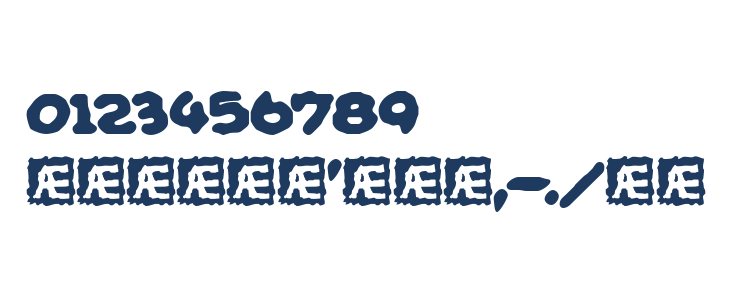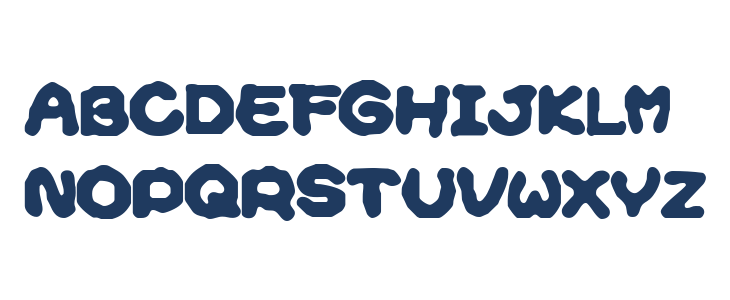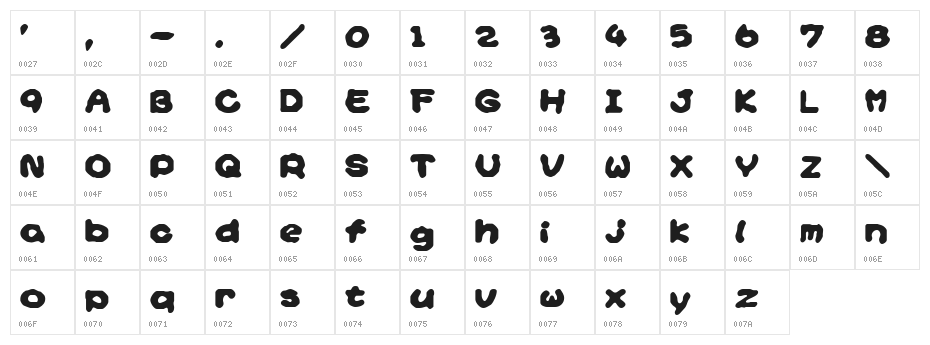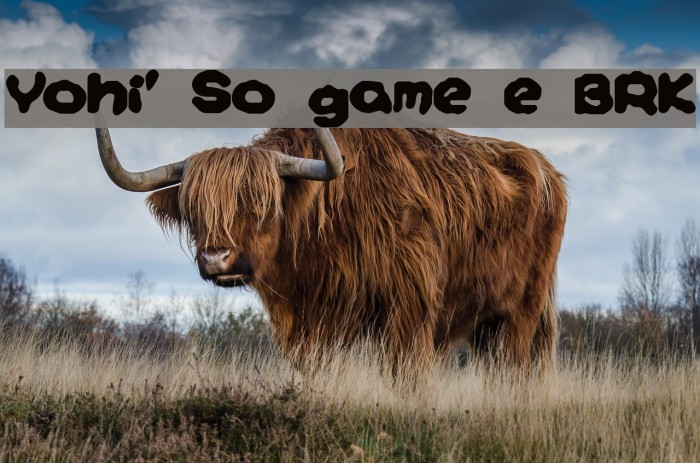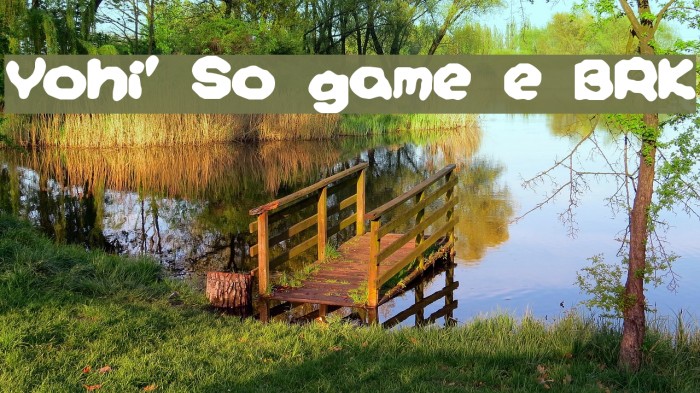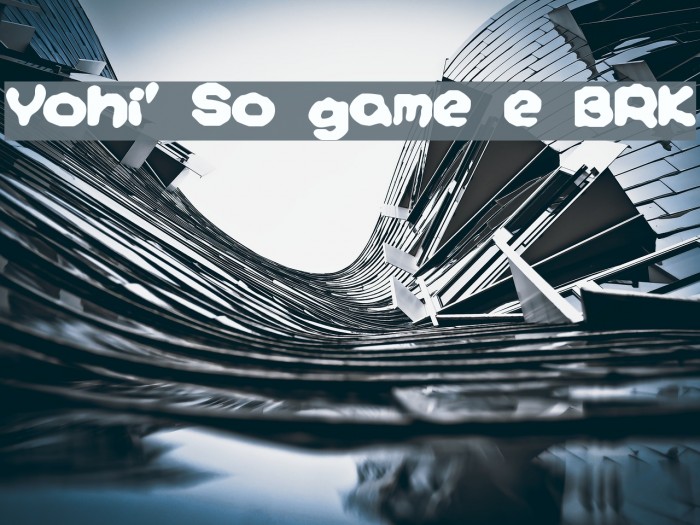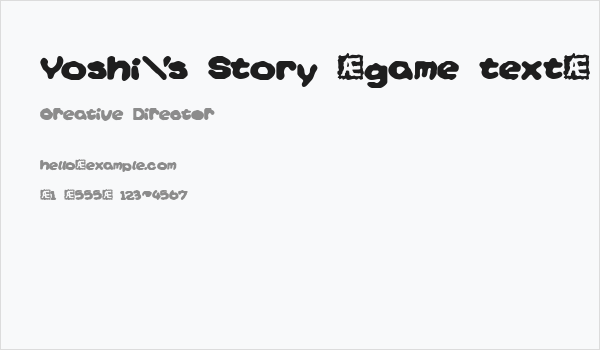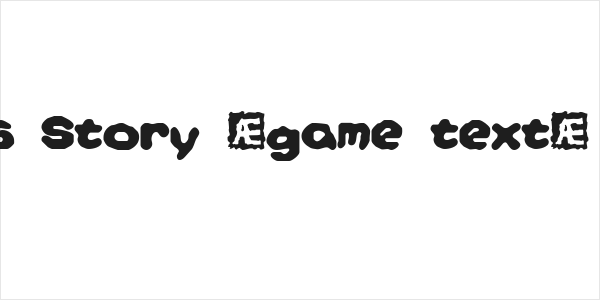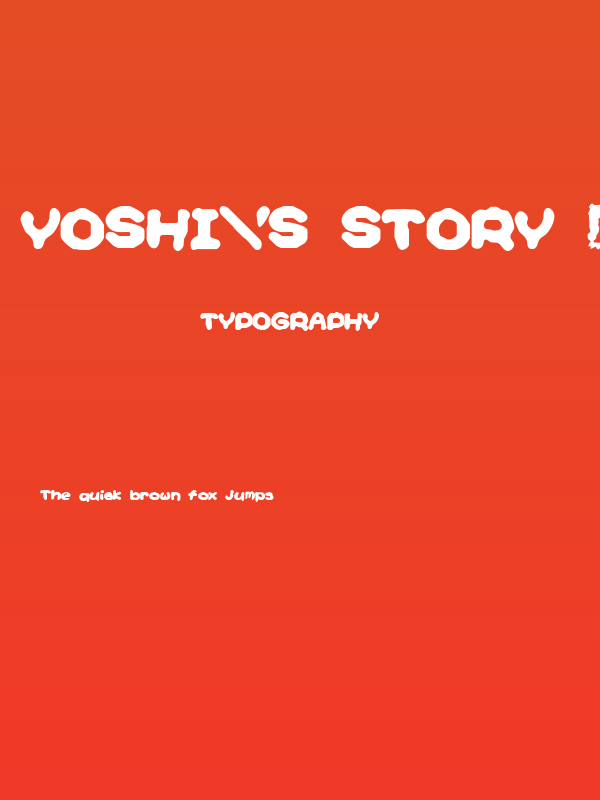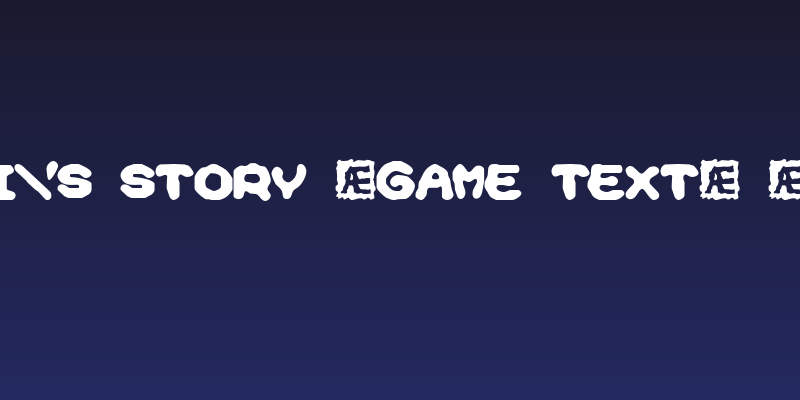
Yoshi's Story [game text] [BRK] Font
Yoshi's Story [game text] [BRK] Description
This playful and bold font features a whimsical, cartoon-like style with rounded edges and a bubbly appearance. The characters are thick and substantial, giving a sense of fun and energy. The uppercase and lowercase letters maintain a consistent style, with a slightly irregular shape that adds to the playful aesthetic. Numbers and special characters follow the same design principles, ensuring uniformity across all glyphs. This font is ideal for projects that require a lighthearted and approachable feel, making it perfect for children's content, games, or any creative endeavor that seeks to capture a sense of joy and imagination.
| Overall Style | Playful, Cartoon-like |
| Proposed Projects | Ideal for children's books, video game graphics, playful branding, and creative posters. |